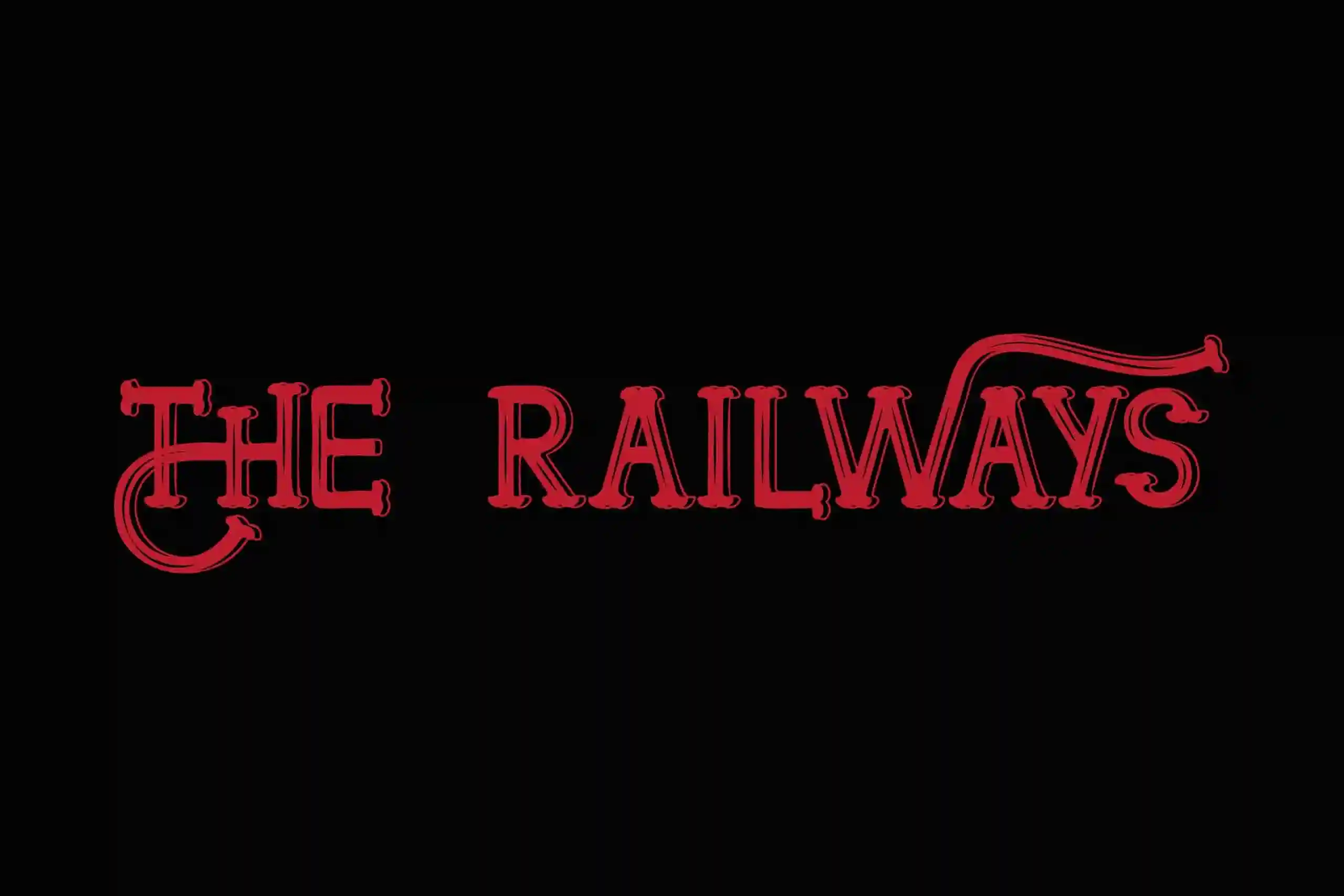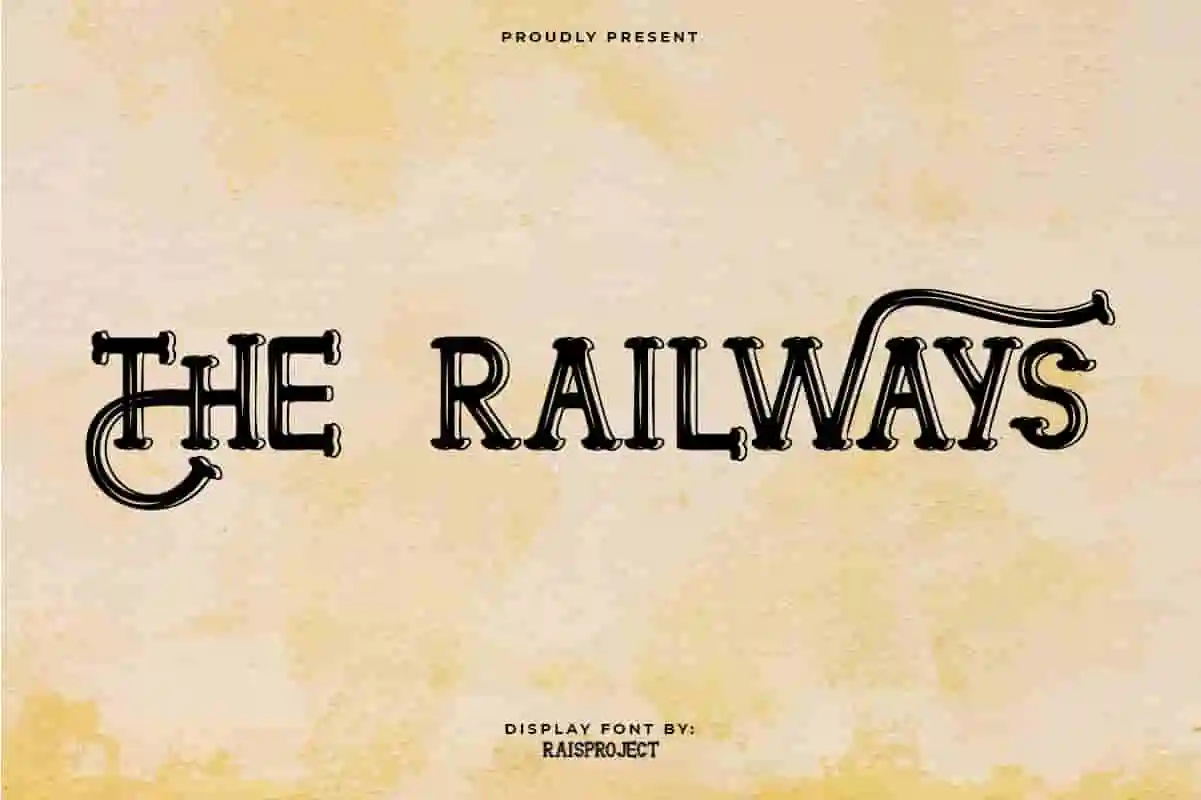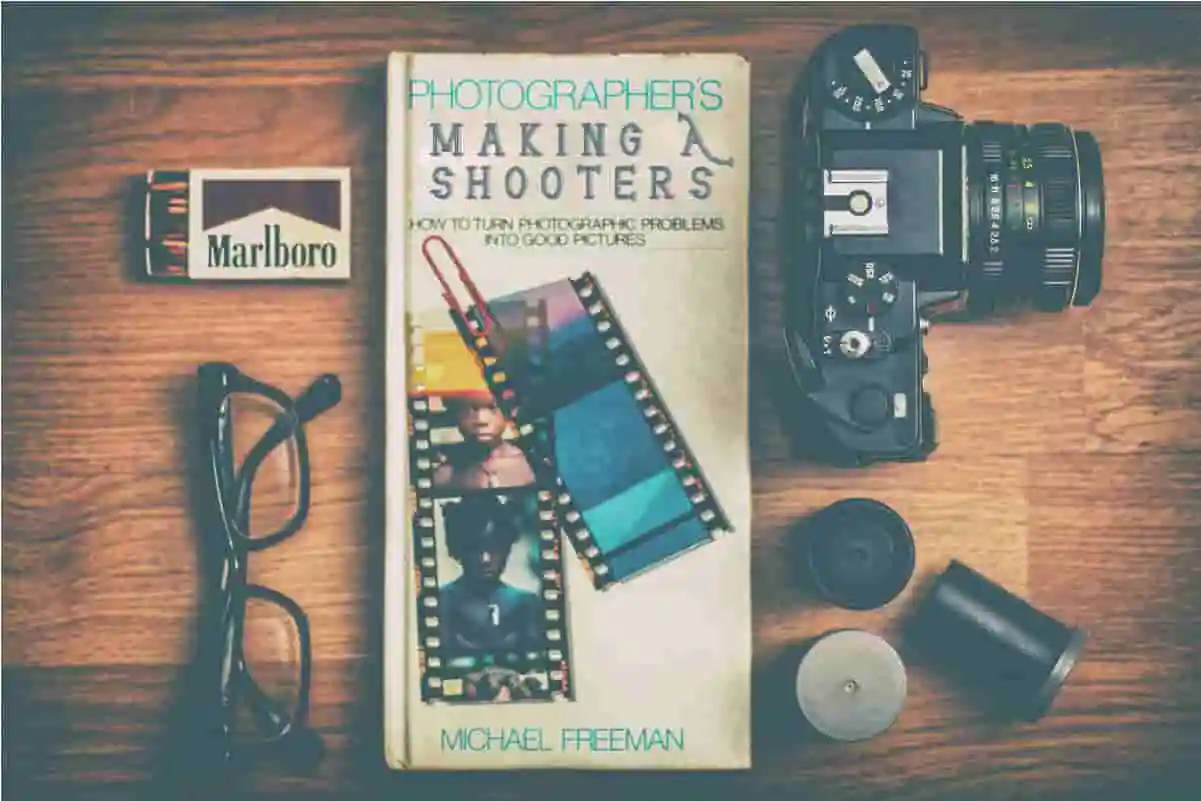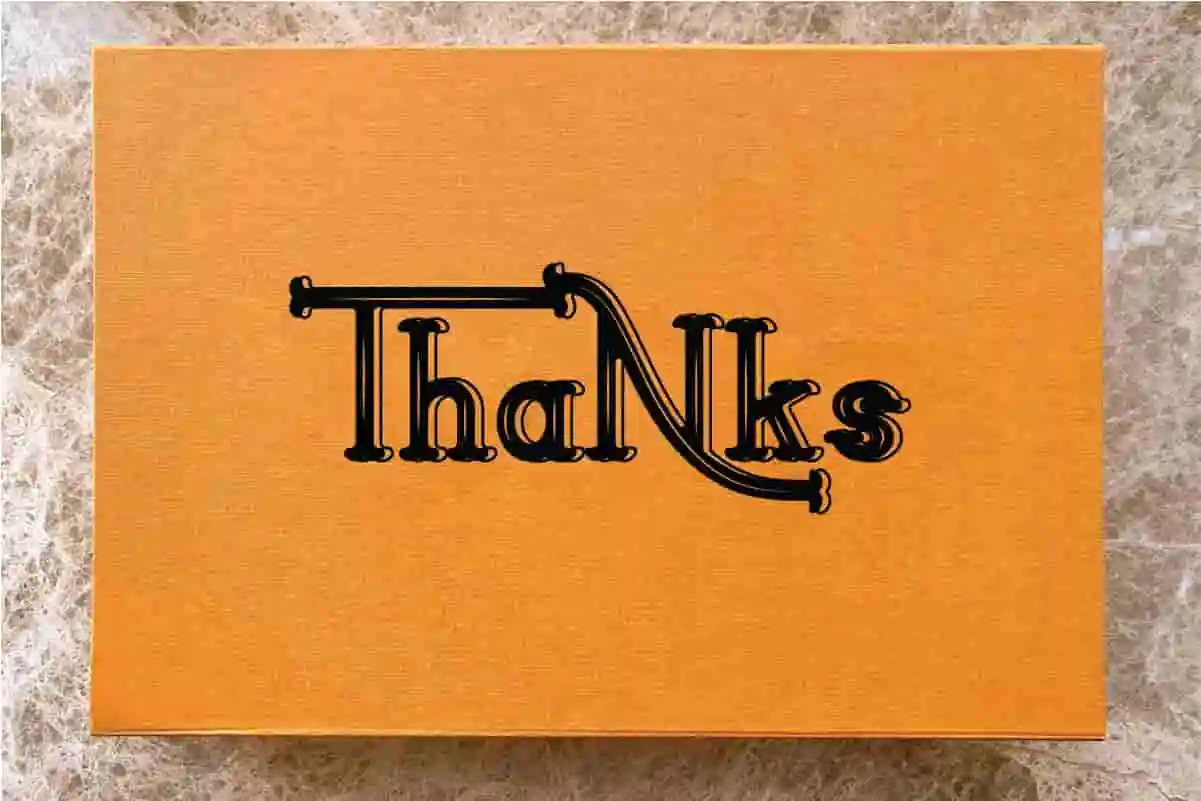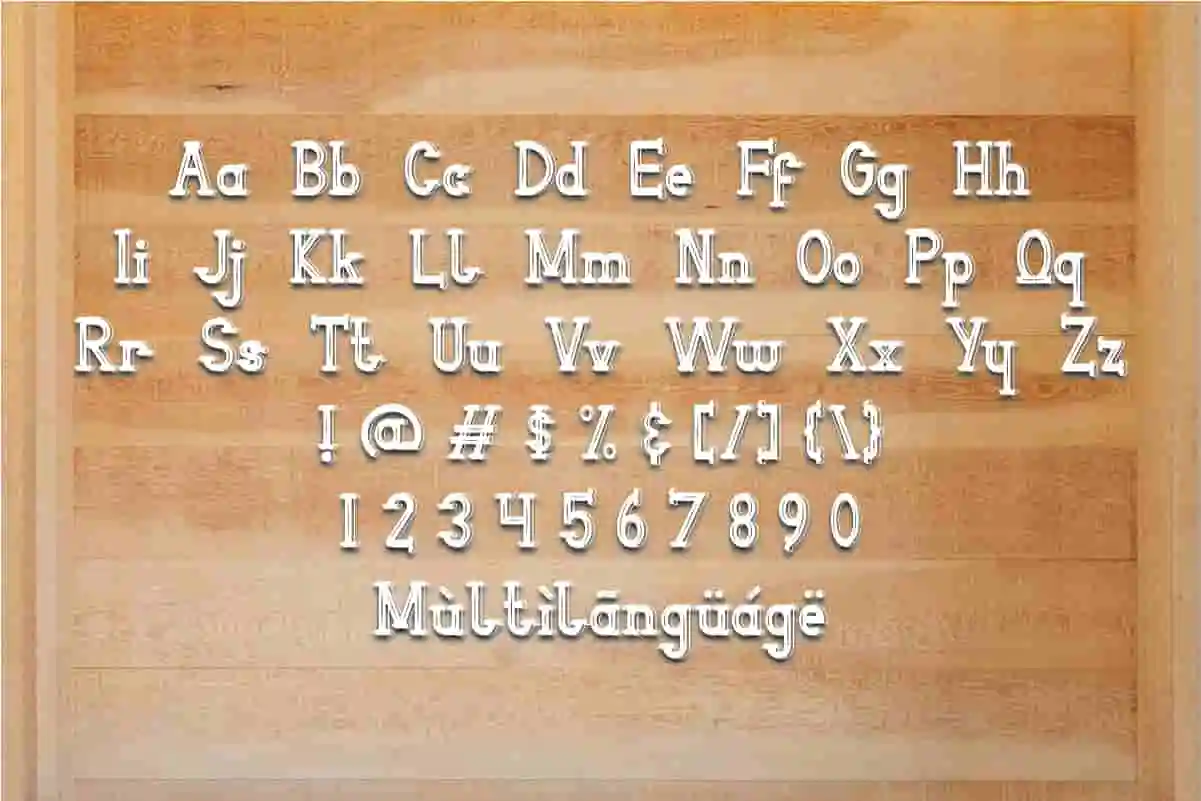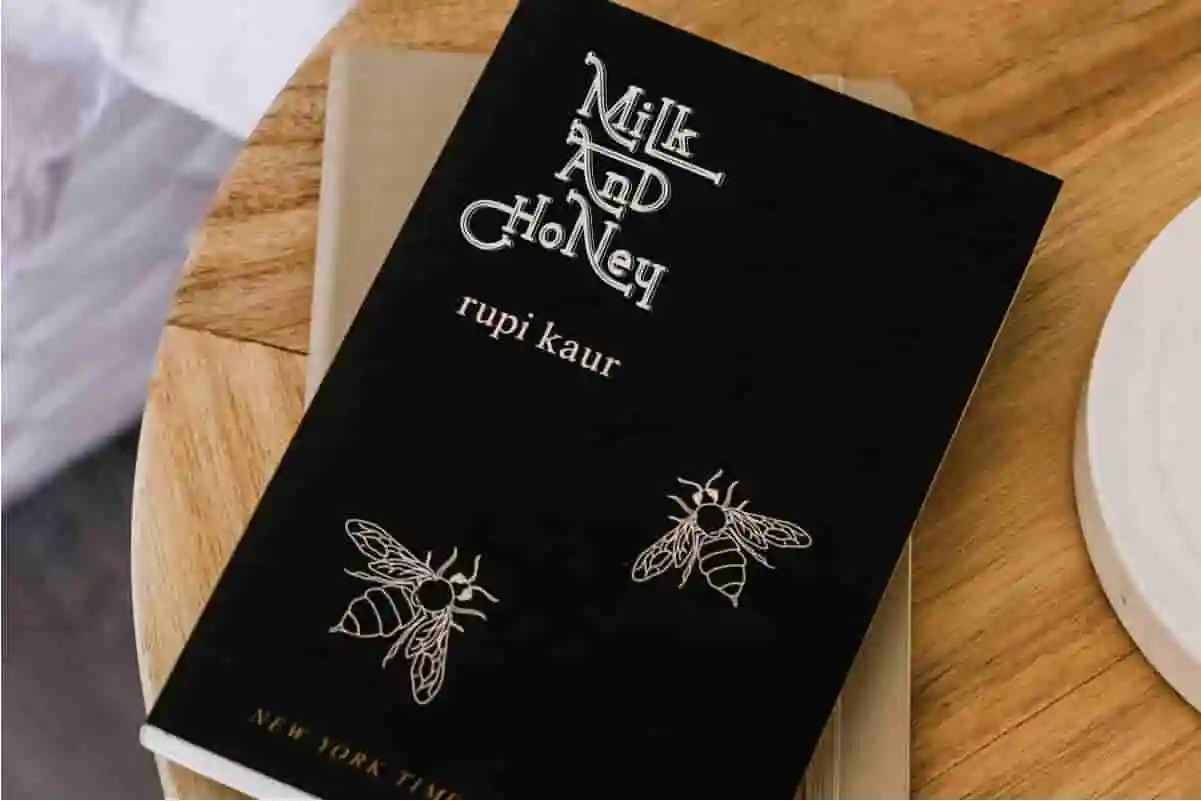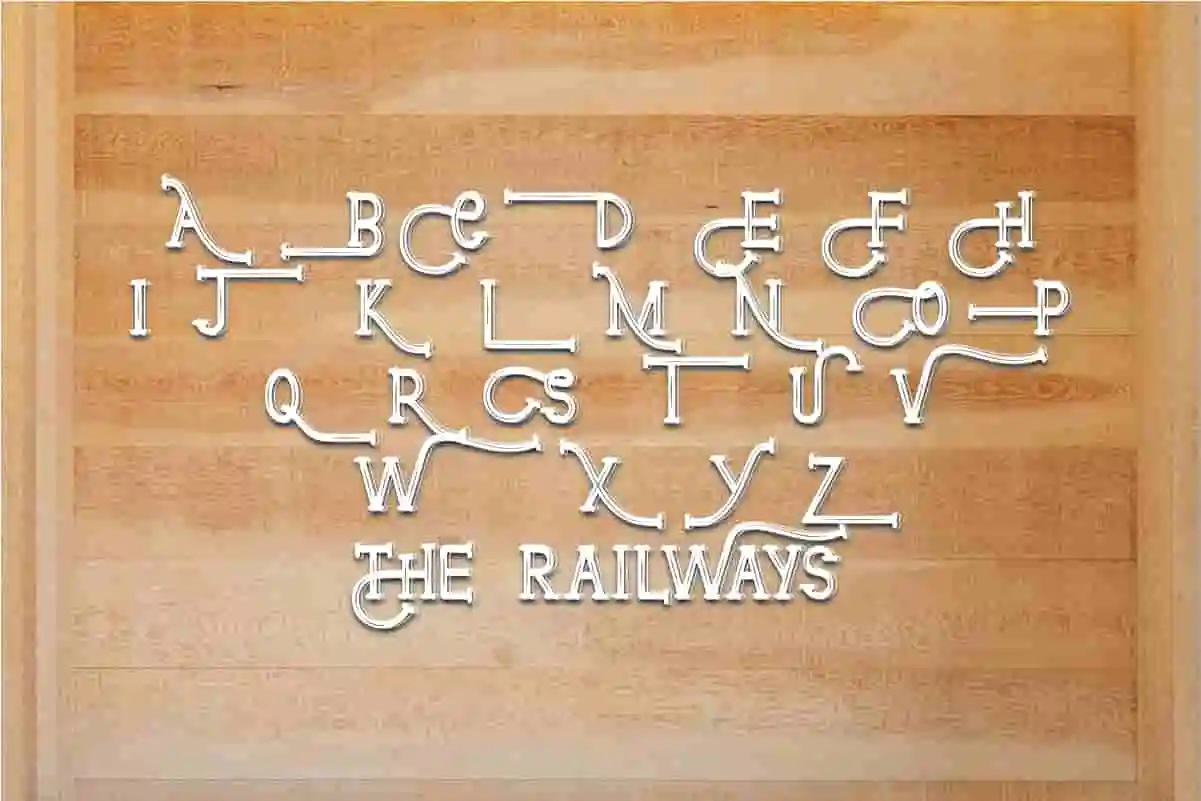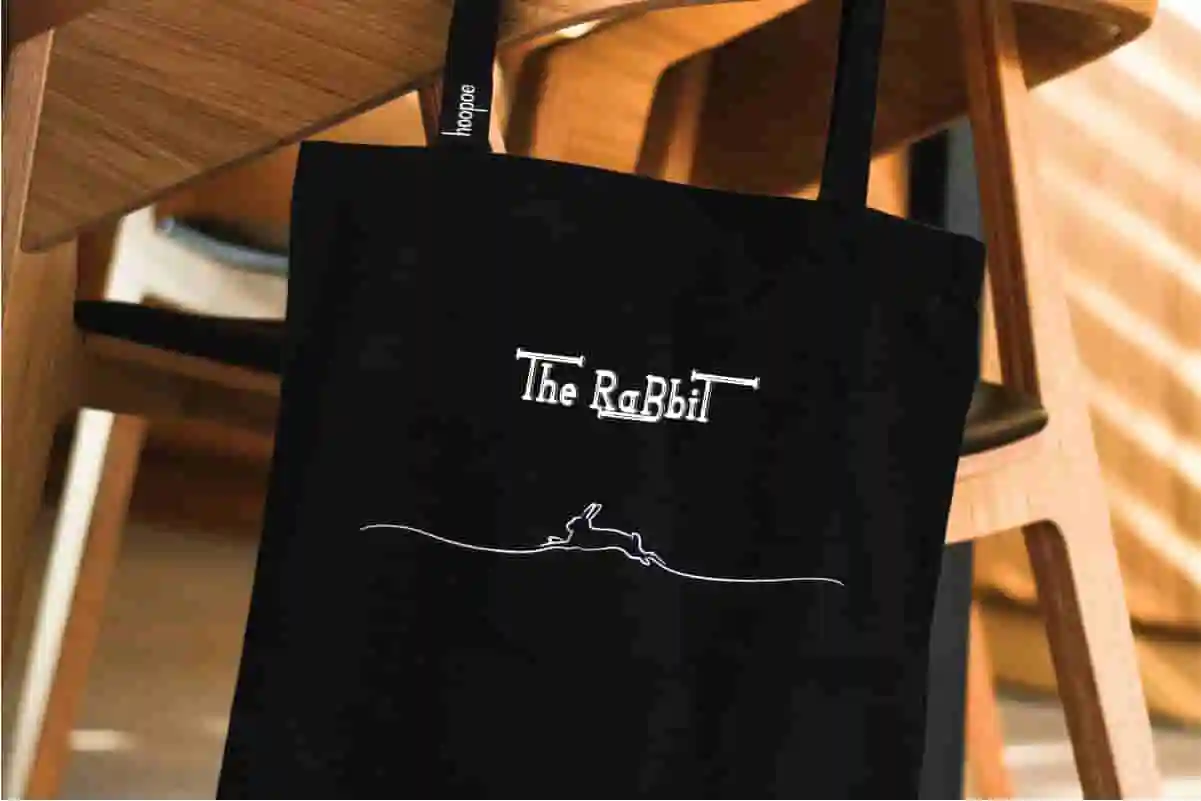
The Railways Sans Serif Font
The Railways Font is a vintage display decorative sans serif font family, designed by Rais Project. The font has unique different styles that is inspired from old American sheriff era . It will be great for Games, Movie, Music, events, Cafe, Branding etc
The Railways Font is a vintage display Sans Serif unique font family, designed by RaisProject.  You can see the demo font below. You can also input any word you want so you can see what it will look like :
The Railways Font remotely made by RaisProject team in Indonesia. The font handcrafted for any your special projects including : brands, promotion, events, games, advertising, magazine, signage, invitation, stationery, social media posts, label, or and any projects that need unique style. The industries for this font is Events, Games, Magazine, Music, Movies, Cafe, Restaurant etc On the package You will get: